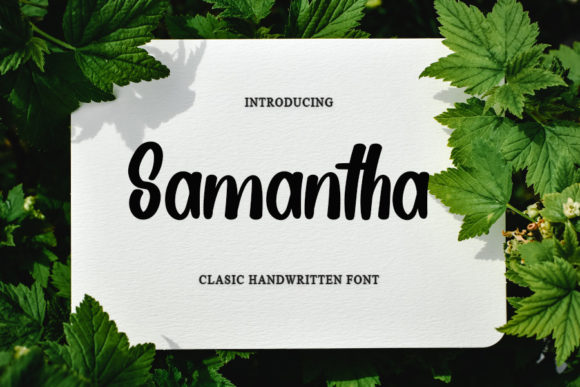
About Samantha Font
“Samantha” is a friendly handwritten font that has been meticulously crafted to secure its place as a true favorite among designers and creatives. This font skillfully maintains a delicate balance, incorporating classy calligraphic influences while exuding a contemporary and fresh feel. As a result, “Samantha” emerges as a versatile and enduring design tool.
The font’s calligraphic influences contribute to its timeless elegance, infusing each stroke with a sense of class and sophistication. Whether applied to invitations, branding materials, or product packaging, “Samantha” effortlessly radiates a timeless style that transcends trends.
While firmly rooted in classical inspiration, “Samantha” retains a friendly and approachable demeanor, making it adaptable for a diverse range of design applications. It seamlessly blends the grace of traditional calligraphy with a modern twist, ensuring its relevance and appeal across various contexts.
Thoughtful design considerations render “Samantha” a flexible and dependable choice for projects requiring a high level of aesthetic appeal. Whether crafting inviting logos, expressive stationery, or engaging branding, this font serves as a key element in enhancing the visual allure of designs.
As designers become acquainted with the friendly charm of “Samantha,” they discover that it goes beyond being just a font; it becomes an essential companion in their creative journey. Its ability to effortlessly combine sophistication with approachability positions it as a go-to option for those seeking to infuse warmth and style into their design projects.
In summary, “Samantha” is more than a font; it is a carefully designed artistic tool that skillfully blends classic calligraphic influences with a contemporary and fresh vibe. Embrace its timeless elegance and inviting demeanor to elevate your projects, whether you’re working on invitations, branding, or any creative endeavor. With its versatile appeal, “Samantha” is poised to become a trusted and cherished asset in the toolkit of designers aiming to infuse their work with enduring charm and modern allure.